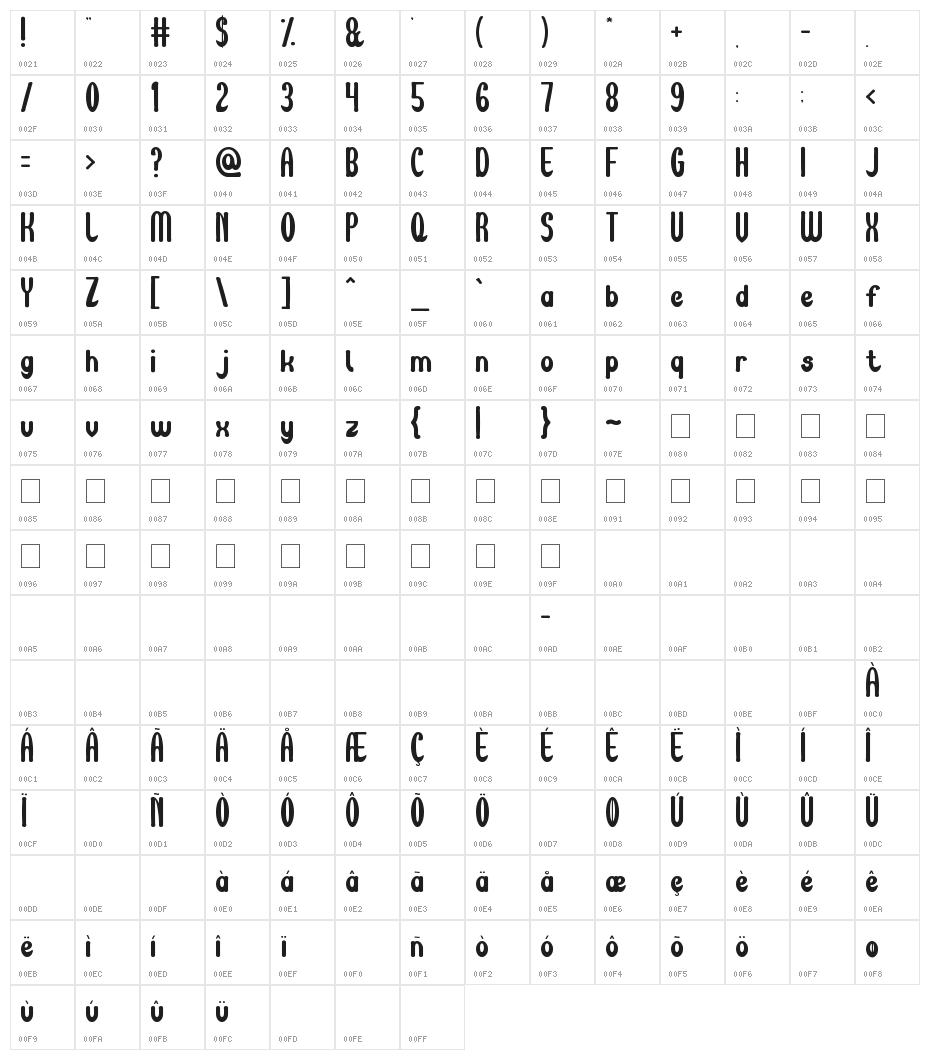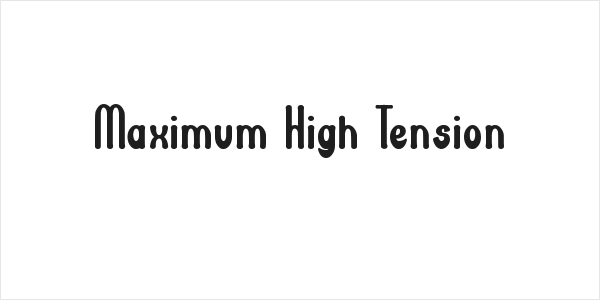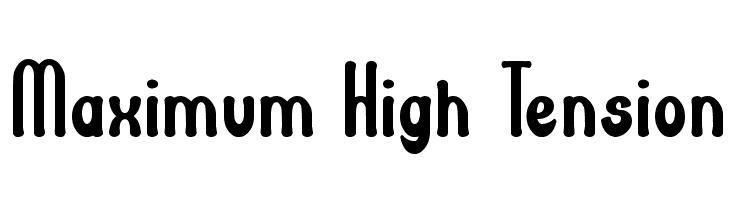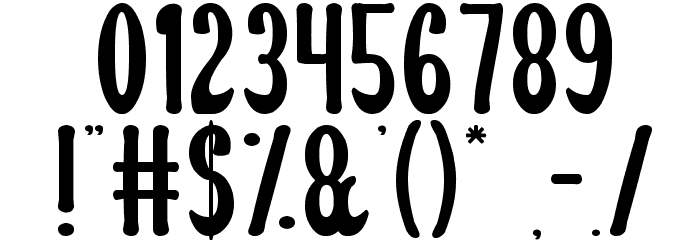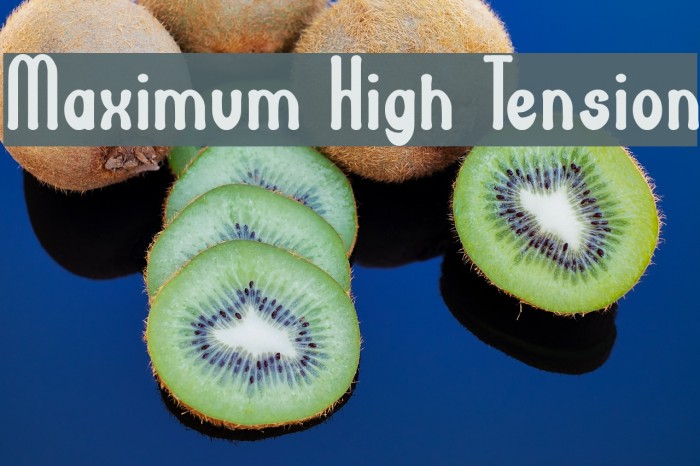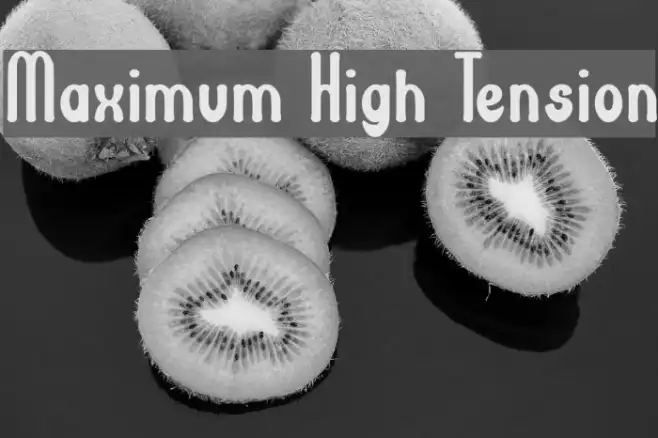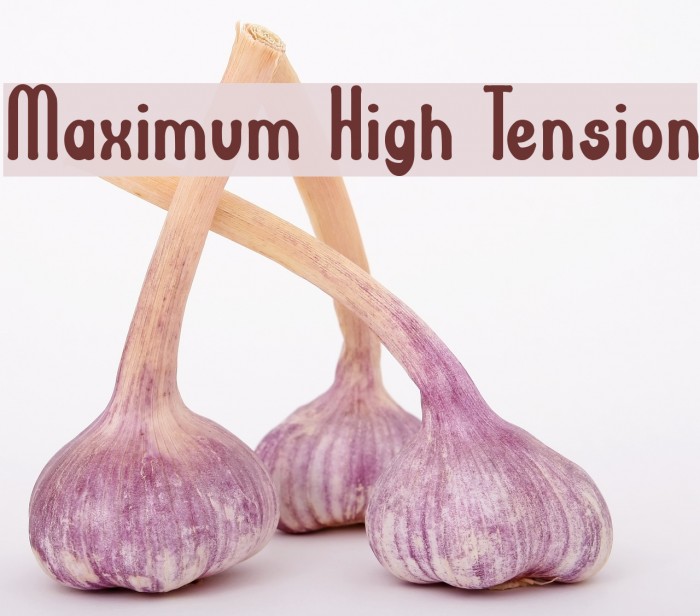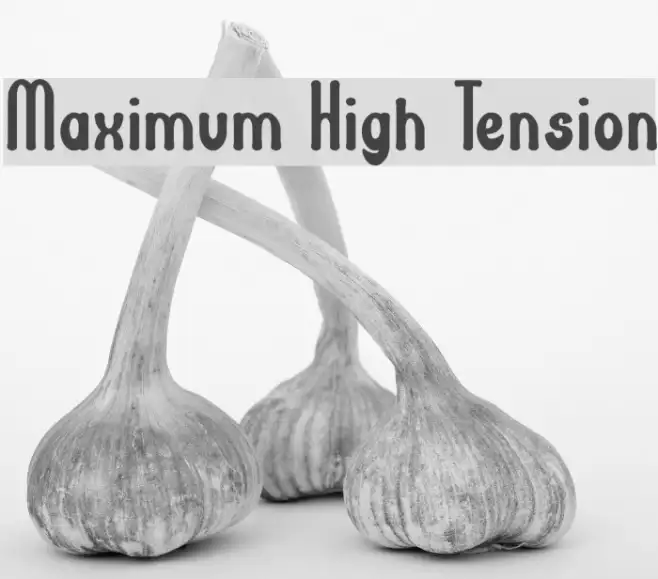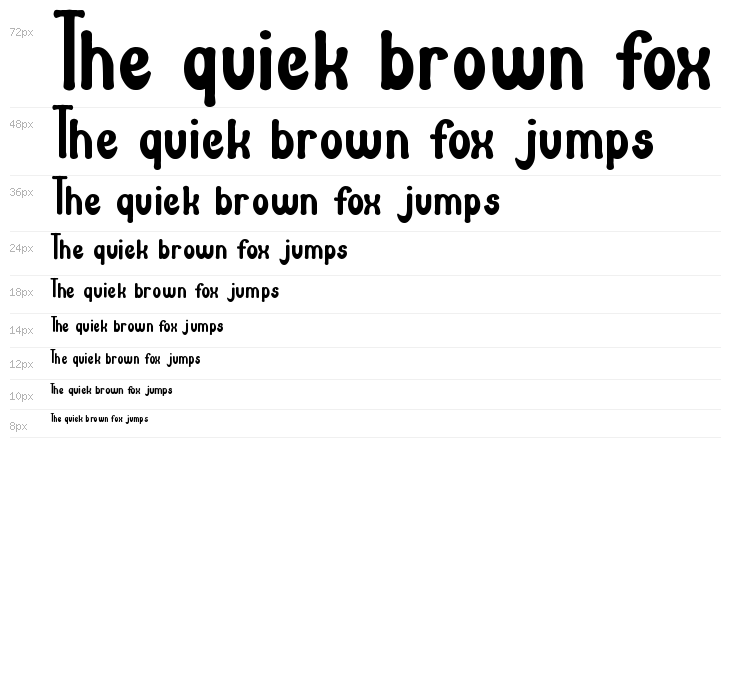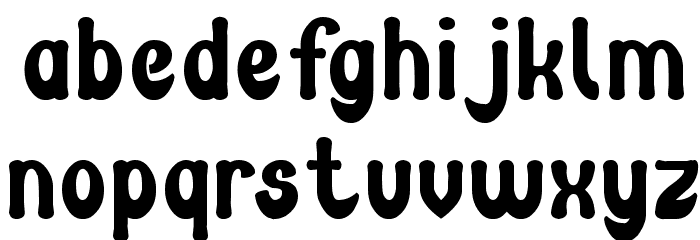
Maximum High Tension Font
Maximum High Tension Description
This font features a bold and playful design with rounded edges and a slightly condensed form. The uppercase letters are tall and narrow, while the lowercase letters maintain a consistent height, creating a harmonious balance. The numerals are distinct and easy to read, with a quirky touch that adds character. Special characters are well-integrated, maintaining the font's overall playful aesthetic. The strokes are consistent in width, providing a uniform appearance across all characters. This font exudes a modern yet whimsical vibe, making it suitable for creative and informal applications.
| Overall Style | Modern, Whimsical |
| Proposed Projects | Ideal for children's books, playful branding, posters, and creative packaging. |